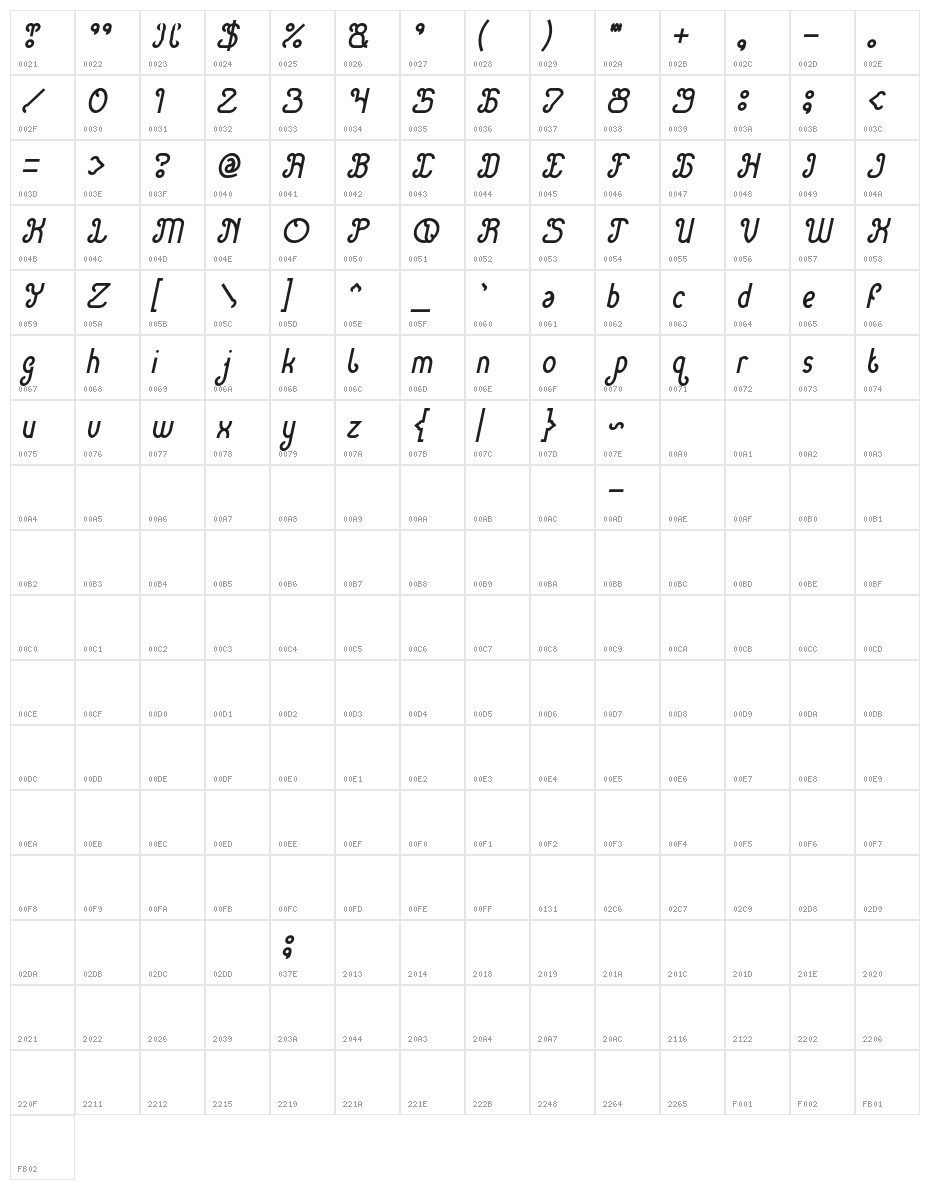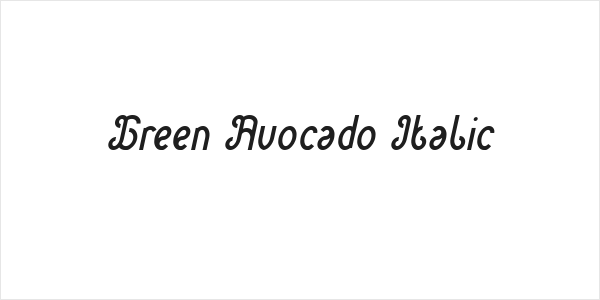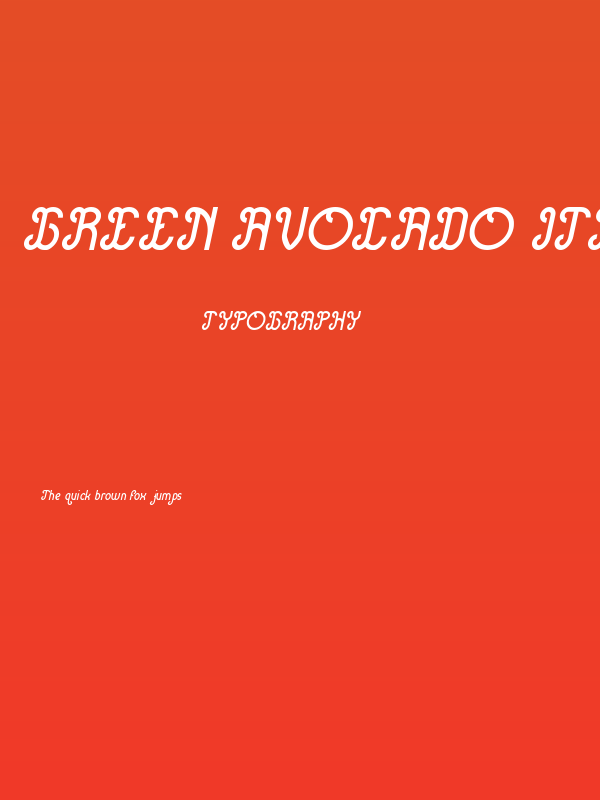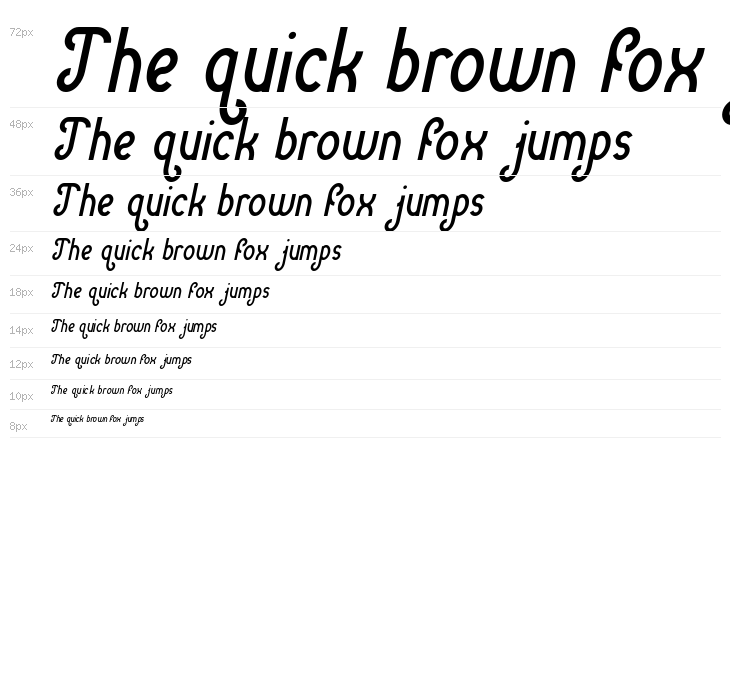
Green Avocado Italic Font
Green Avocado Italic Description
This font features a playful and dynamic style with a distinct italic slant, giving it a lively and energetic appearance. The characters are rounded and smooth, with a consistent stroke width that maintains readability while adding a touch of whimsy. The uppercase letters are bold and prominent, while the lowercase letters maintain a friendly and approachable feel. The numerals are uniquely styled to match the overall aesthetic, and the special characters are creatively integrated, enhancing the font's versatility. This font's design is suitable for projects that require a fun and engaging visual element.
| Proposed Projects | Ideal for children's books, playful branding, creative posters, and casual invitations. |